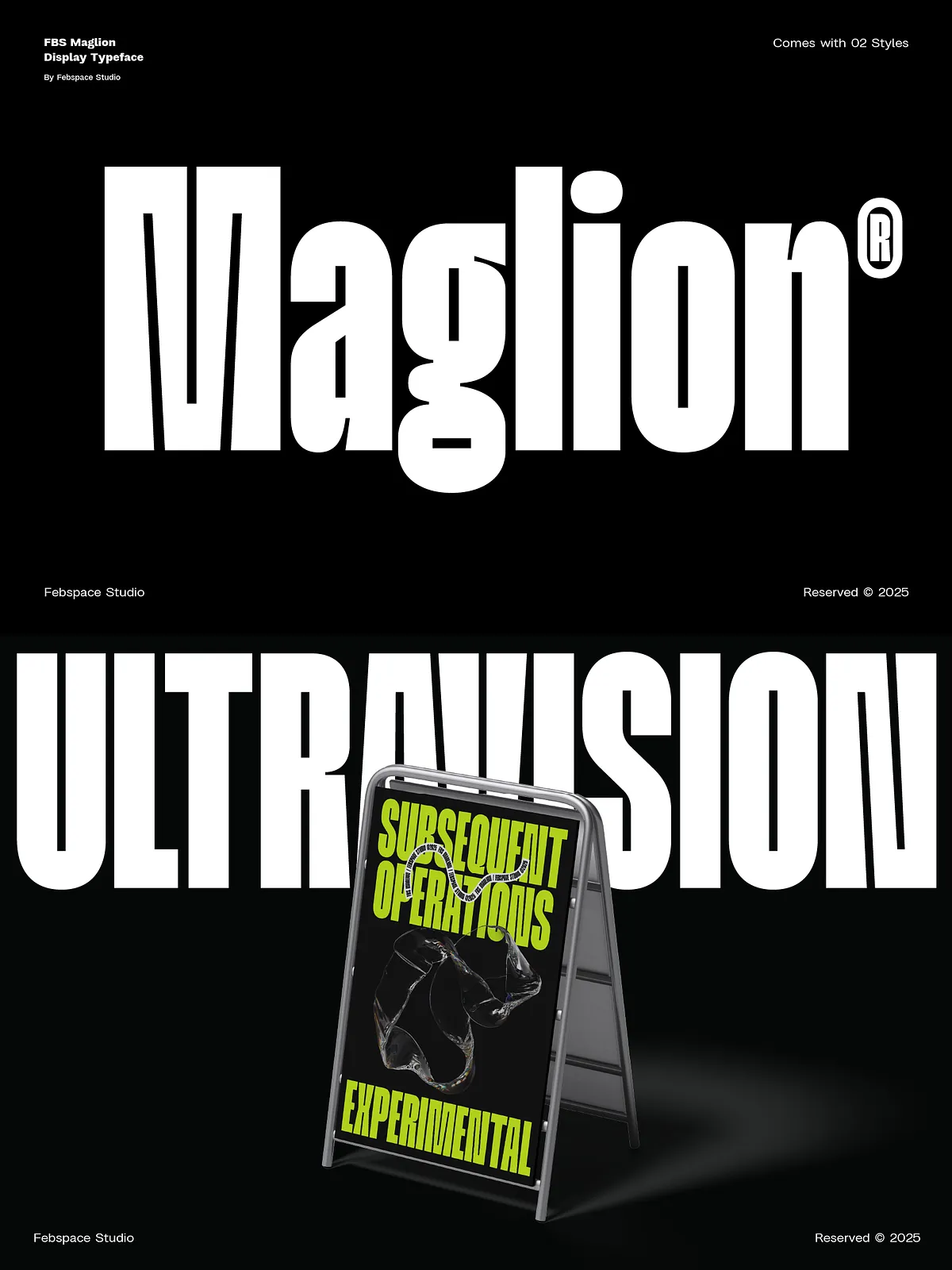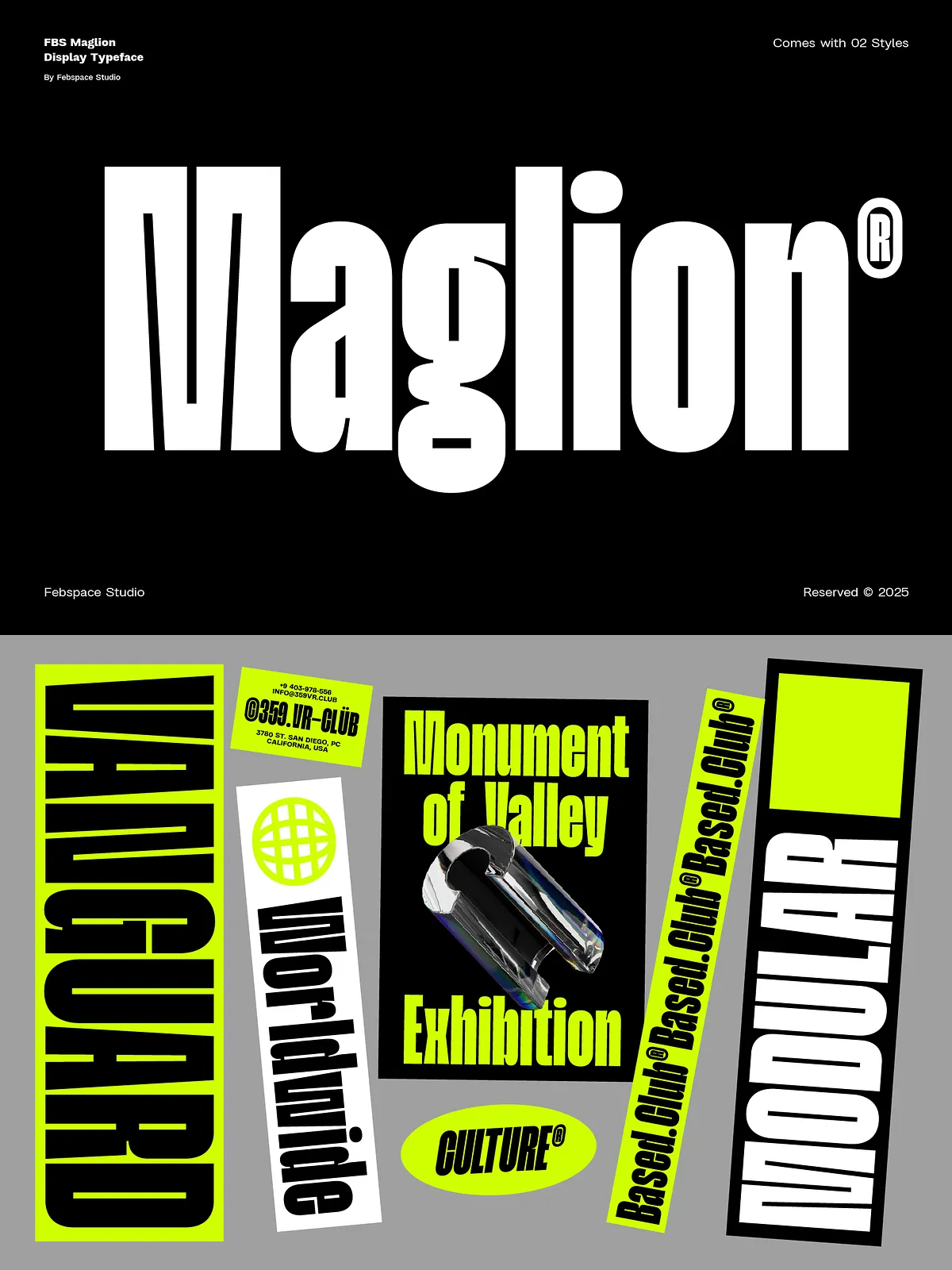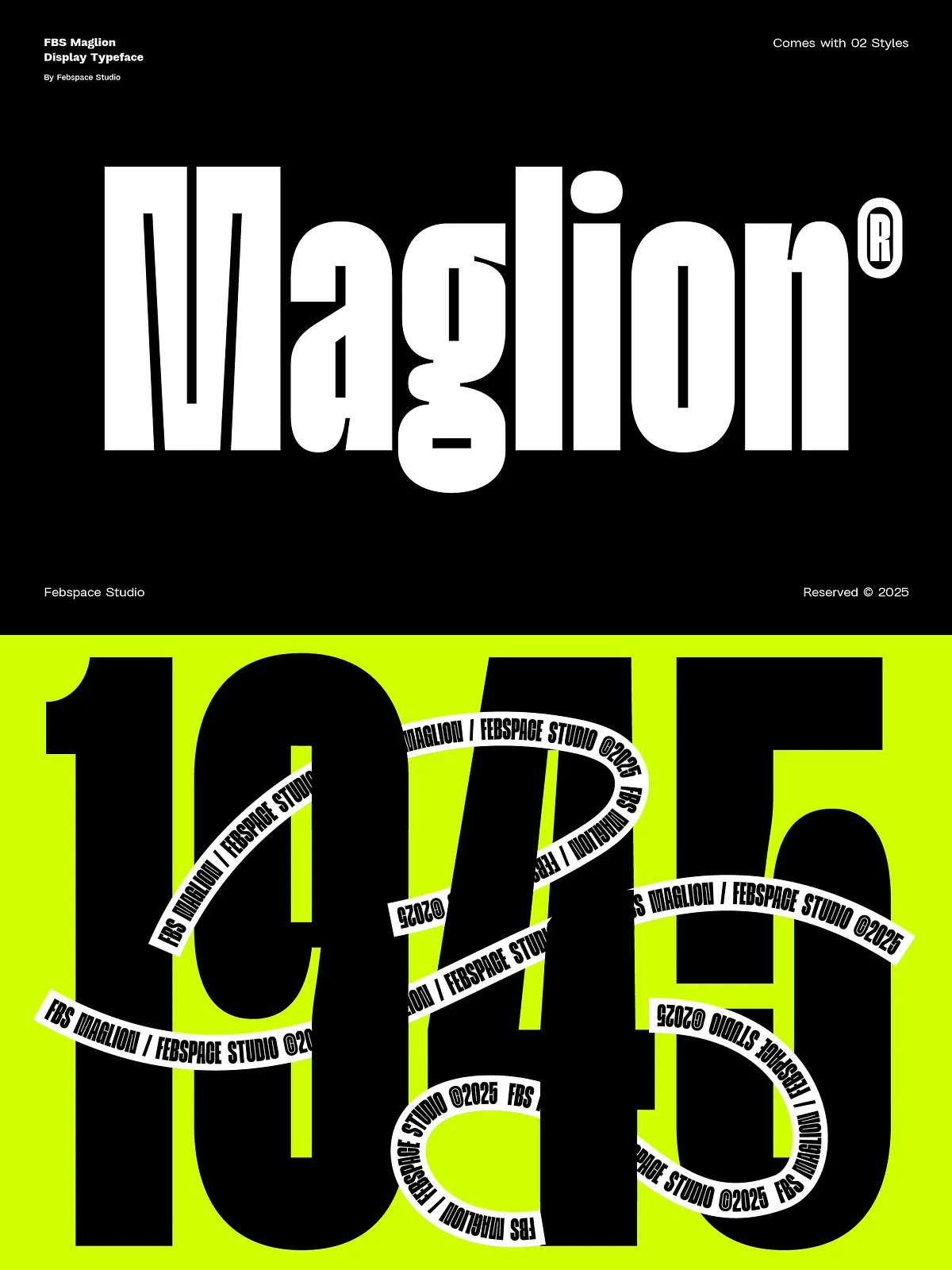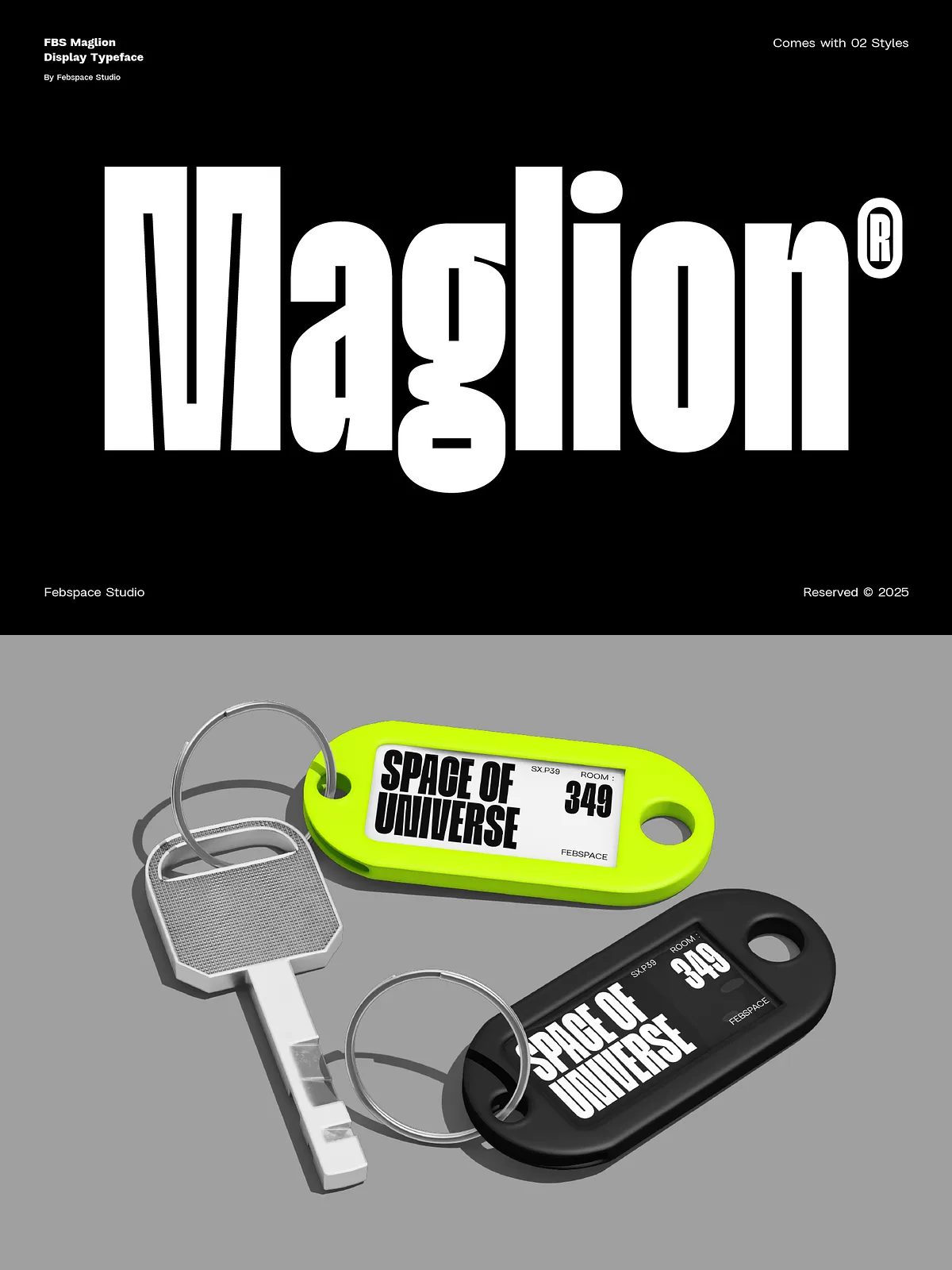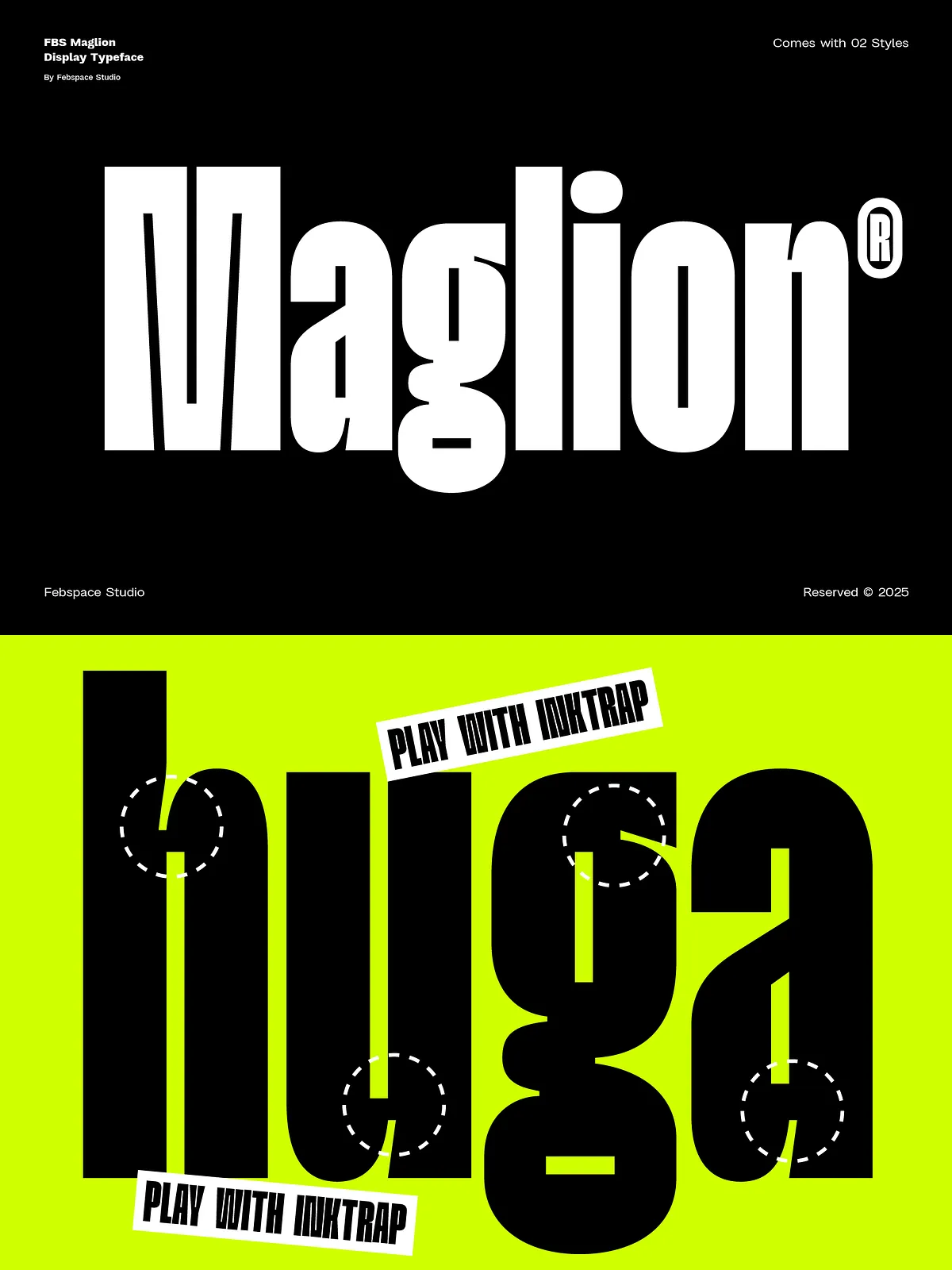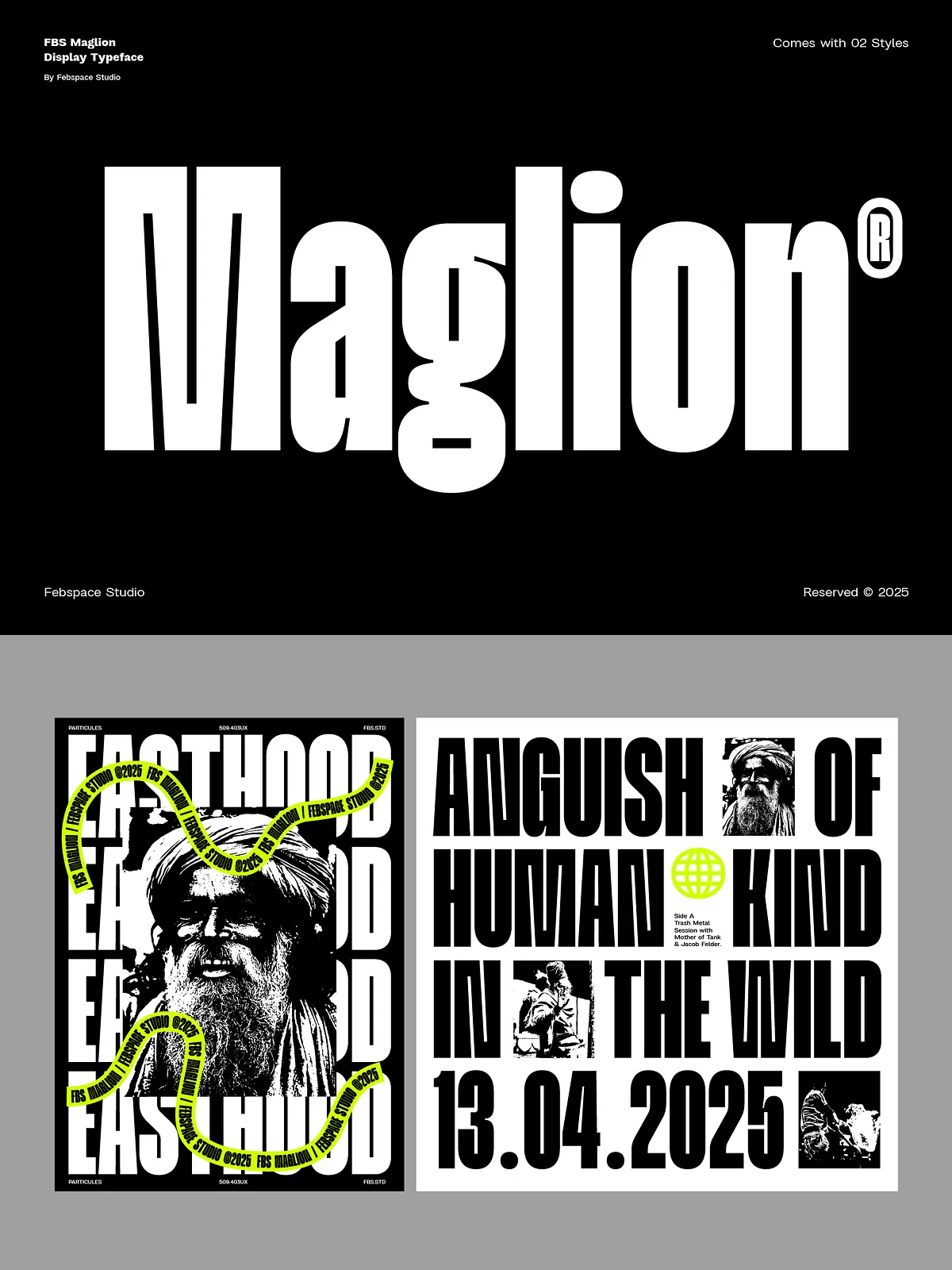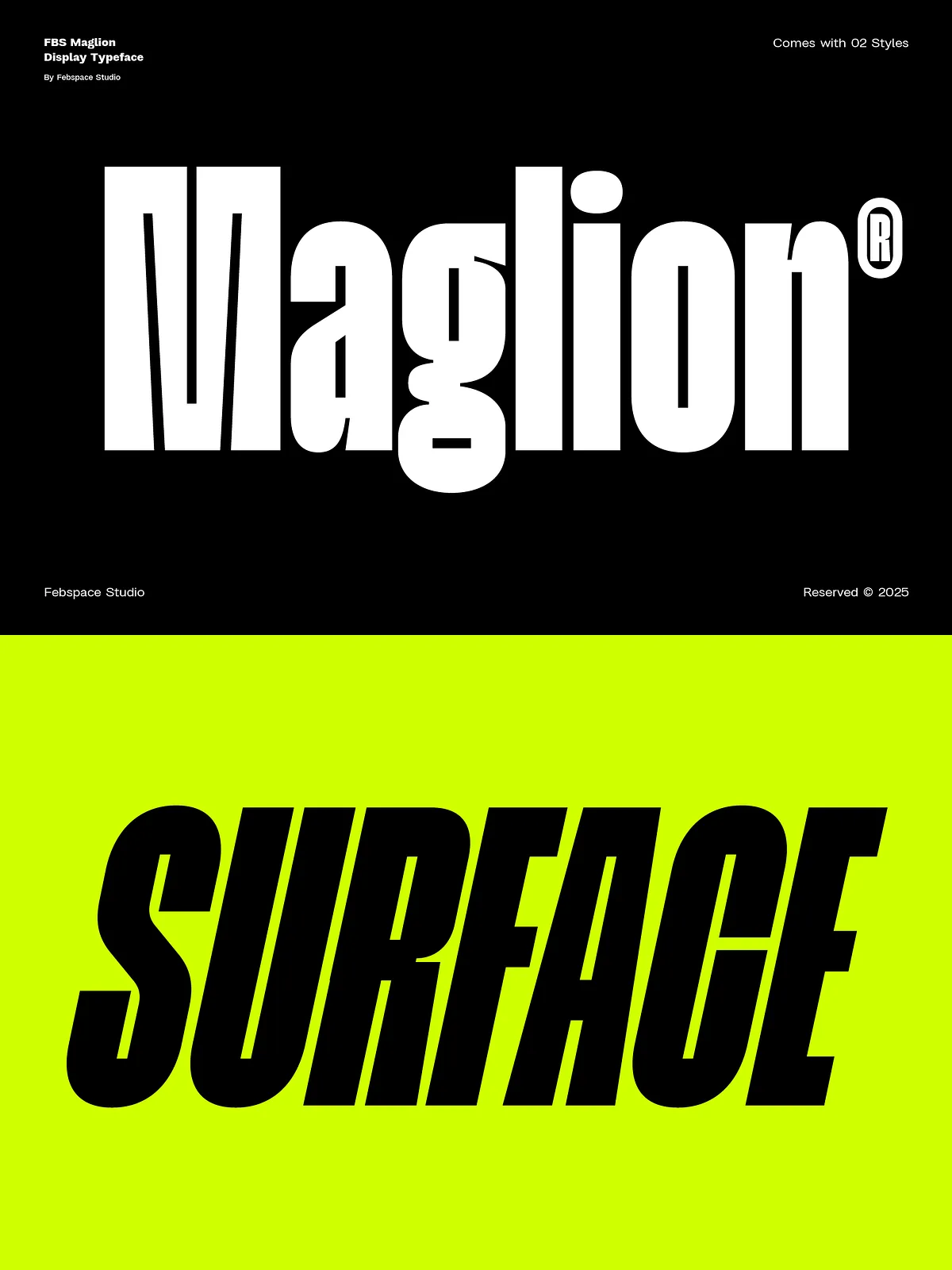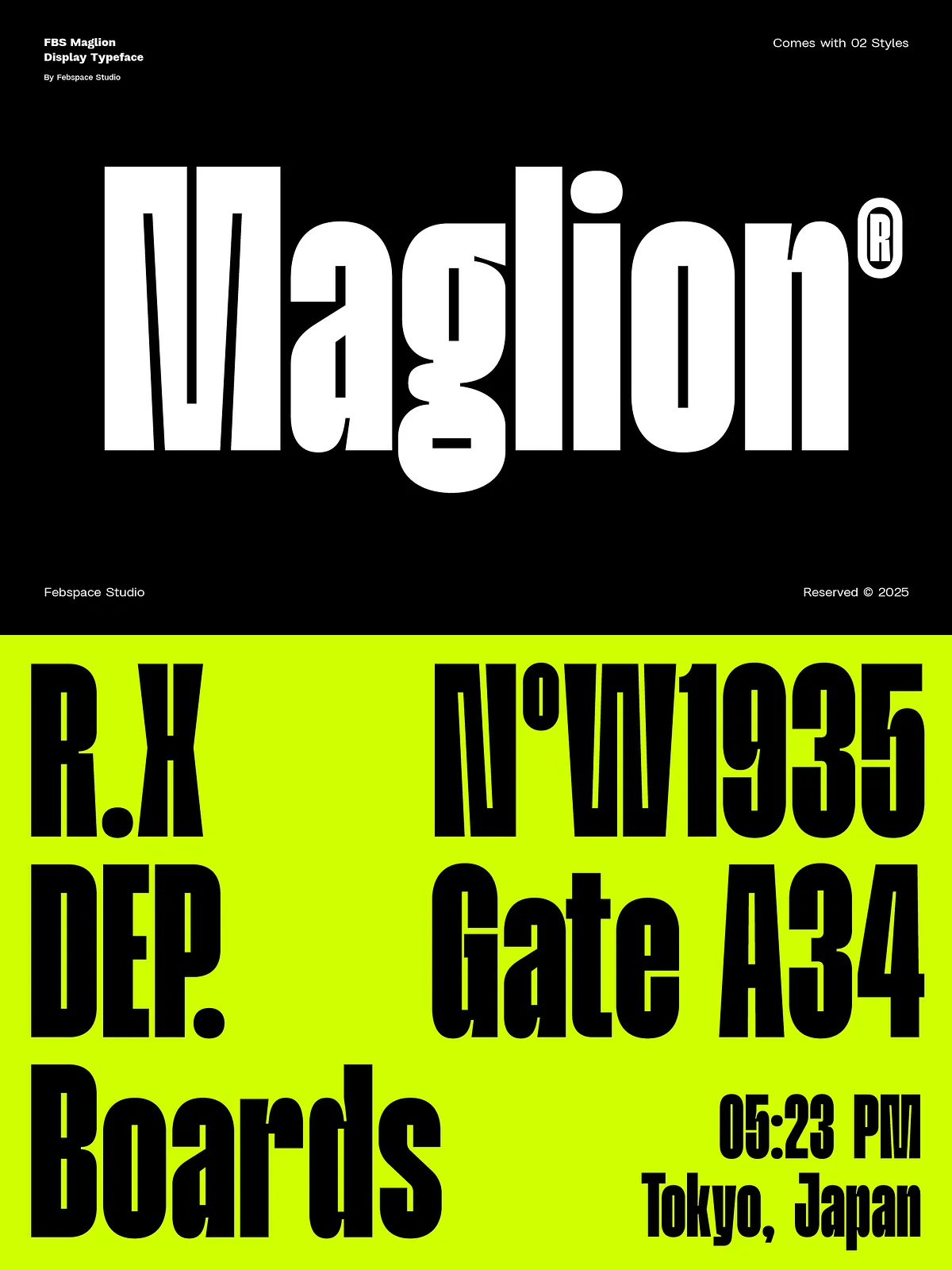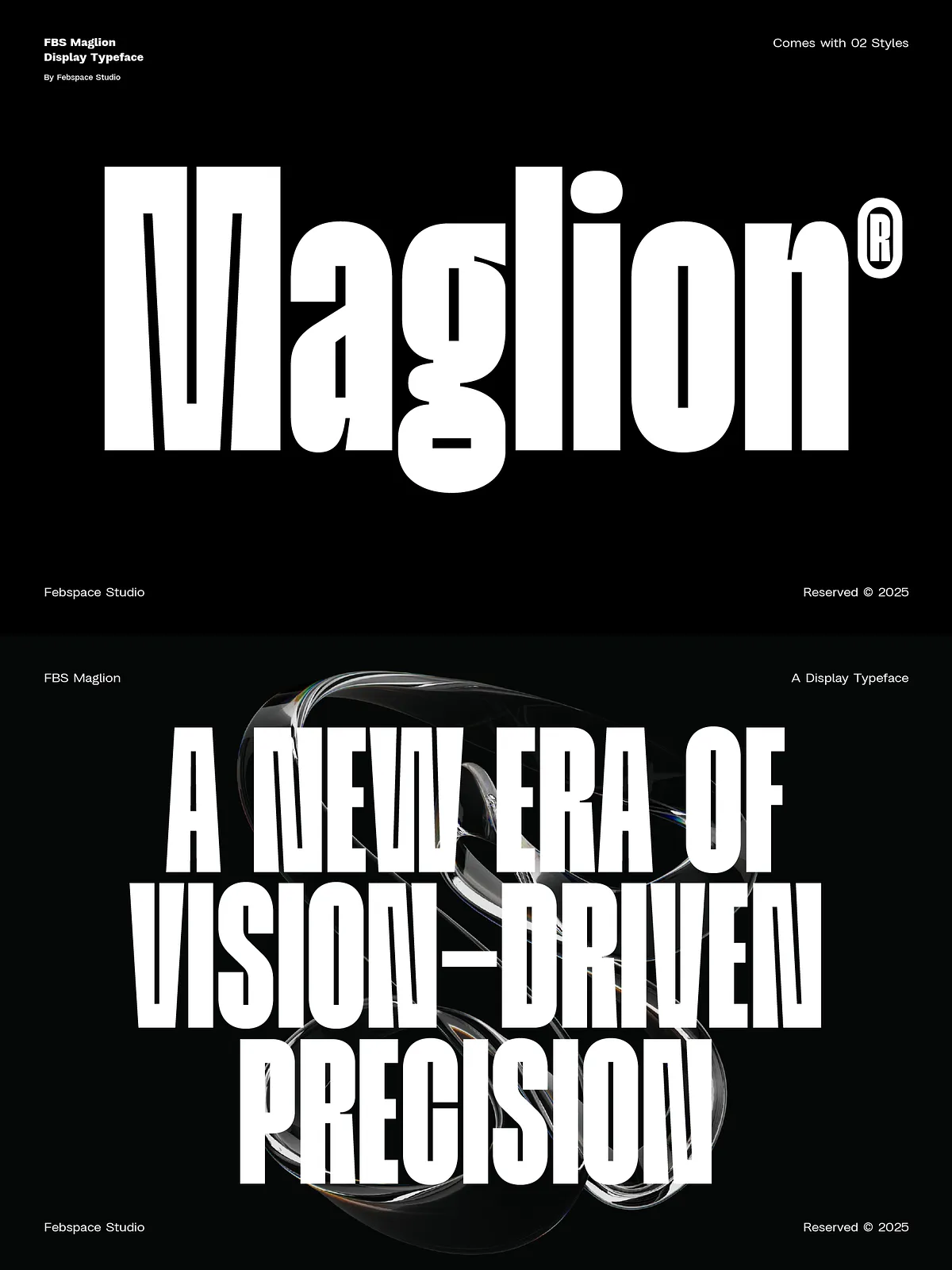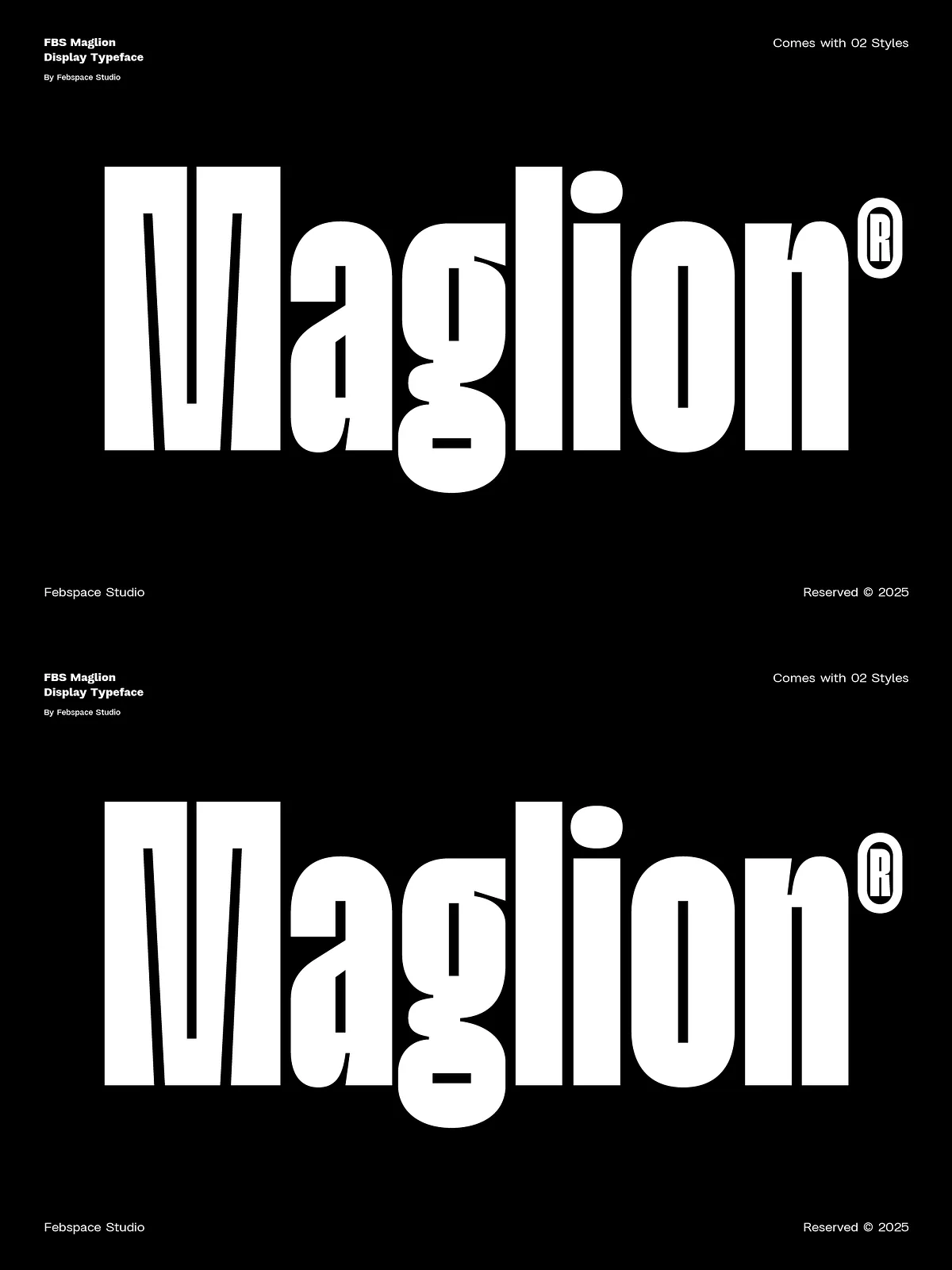
FBS Maglion®
FBS Maglion is a modern condensed typeface featuring functional inktraps that enhance both its visual identity and legibility. Designed in two distinct styles—Regular and Slanted—this typeface brings a bold and stylish edge to any project. Perfectly suited for editorial design, fashion branding, packaging, posters, and more, FBS Maglion offers high adaptability without compromising its strong personality.
Key Features :
2 Styles: Regular & Slanted
Condensed structure with unique inktraps
Ideal for headlines, branding, and editorial use
Modern, bold, and versatile